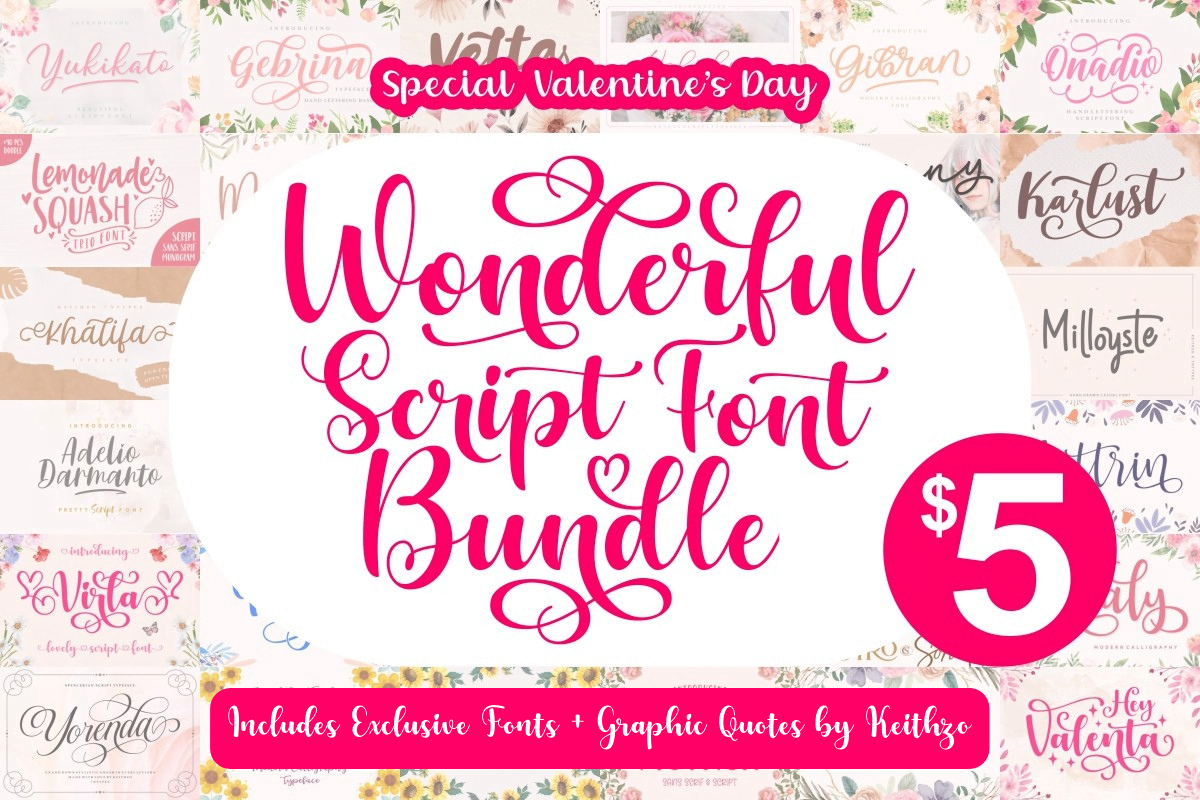
Wonderful Script Font Bundle gathers 53 fonts in different variations and styles for you to use in your upcoming crafting projects. The bundle includes modern calligraphy, monoline calligraphy, brush calligraphy, beautiful serif and vintage script calligraphy, and bonus graphic quotes.